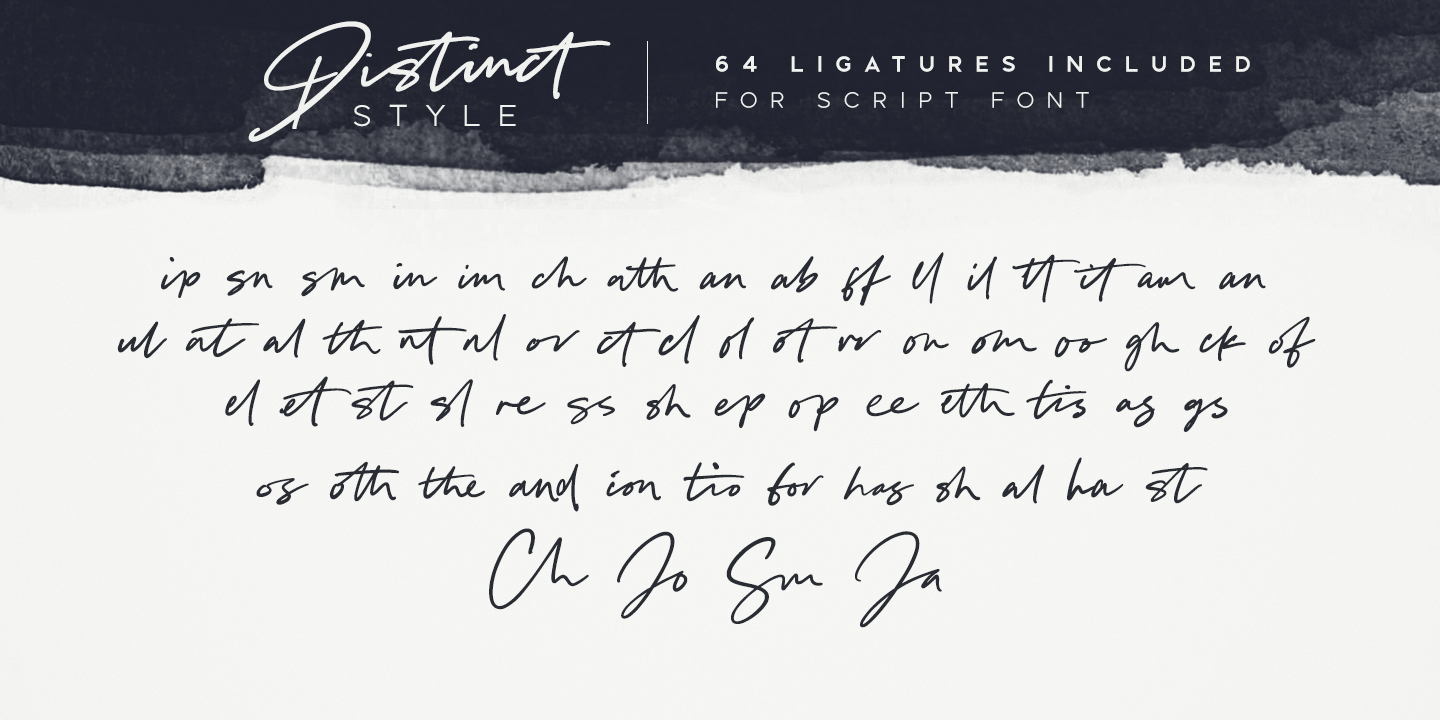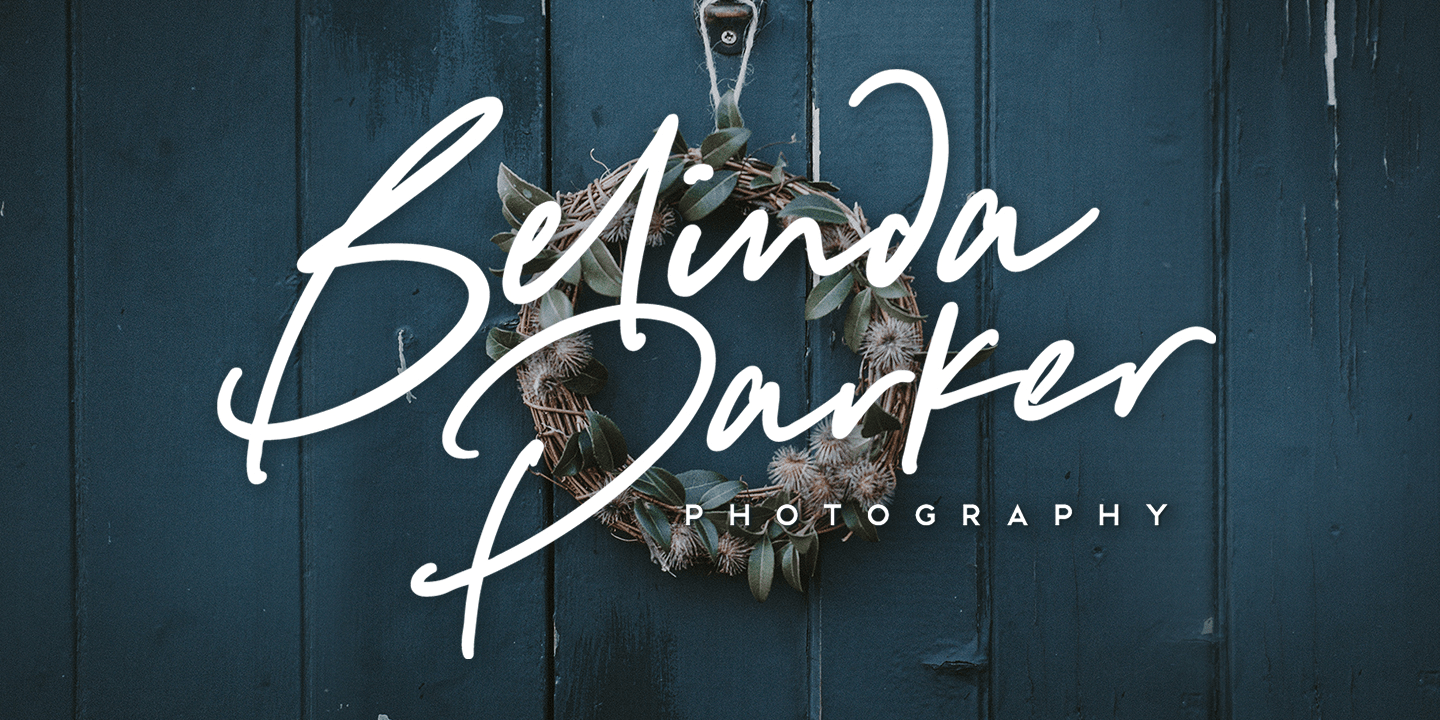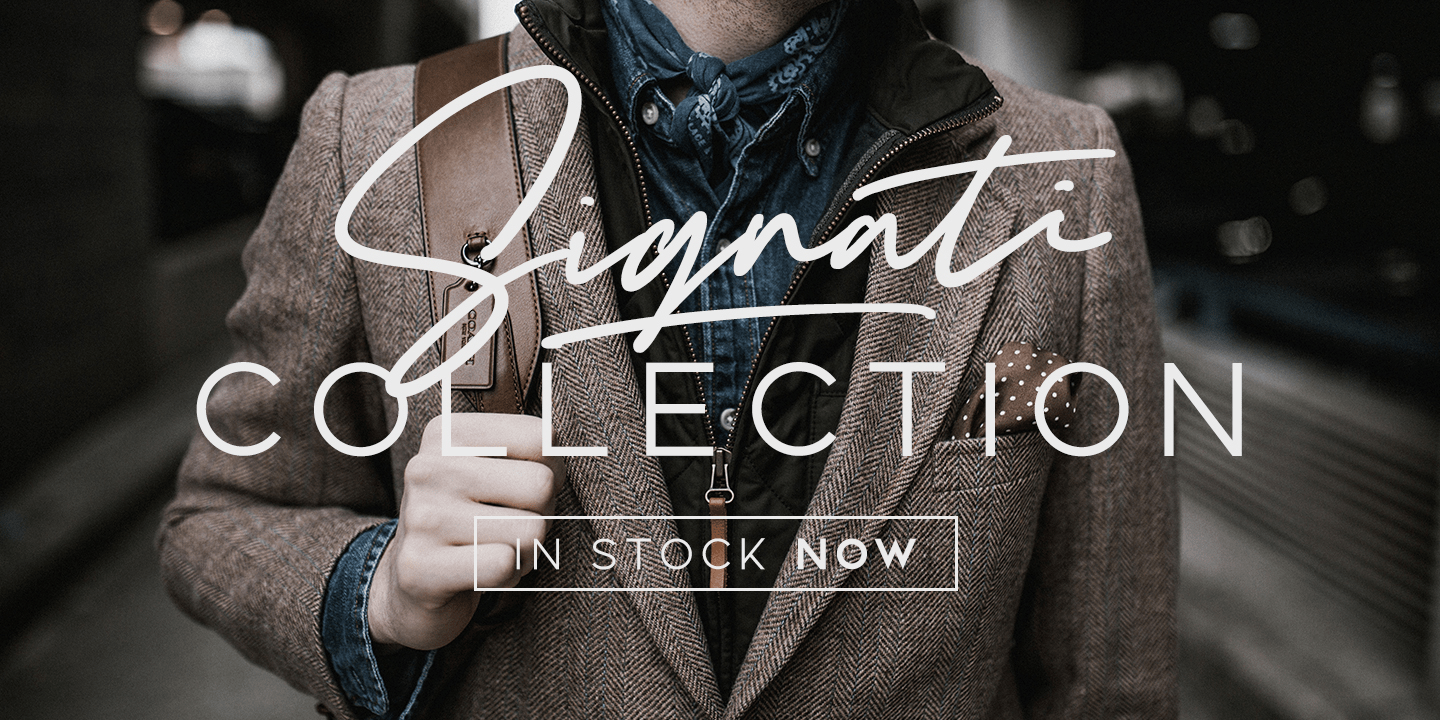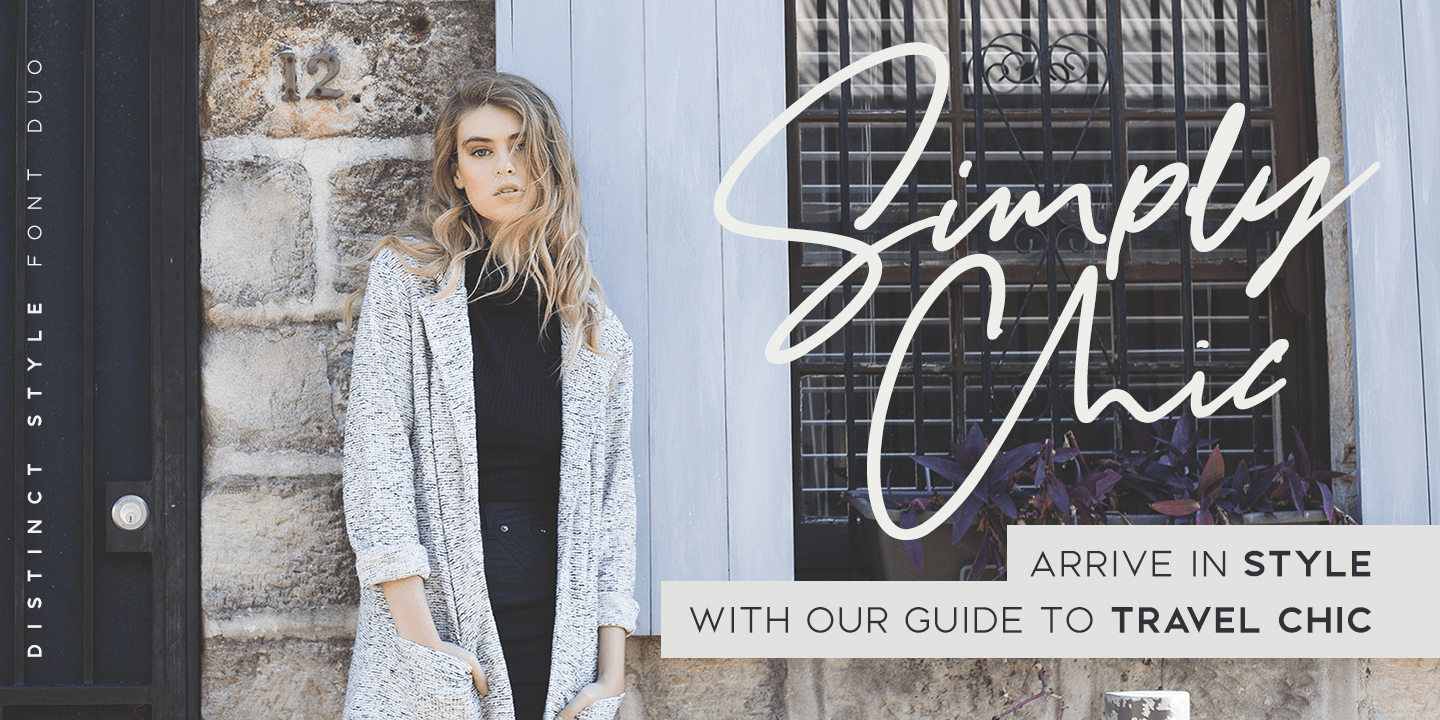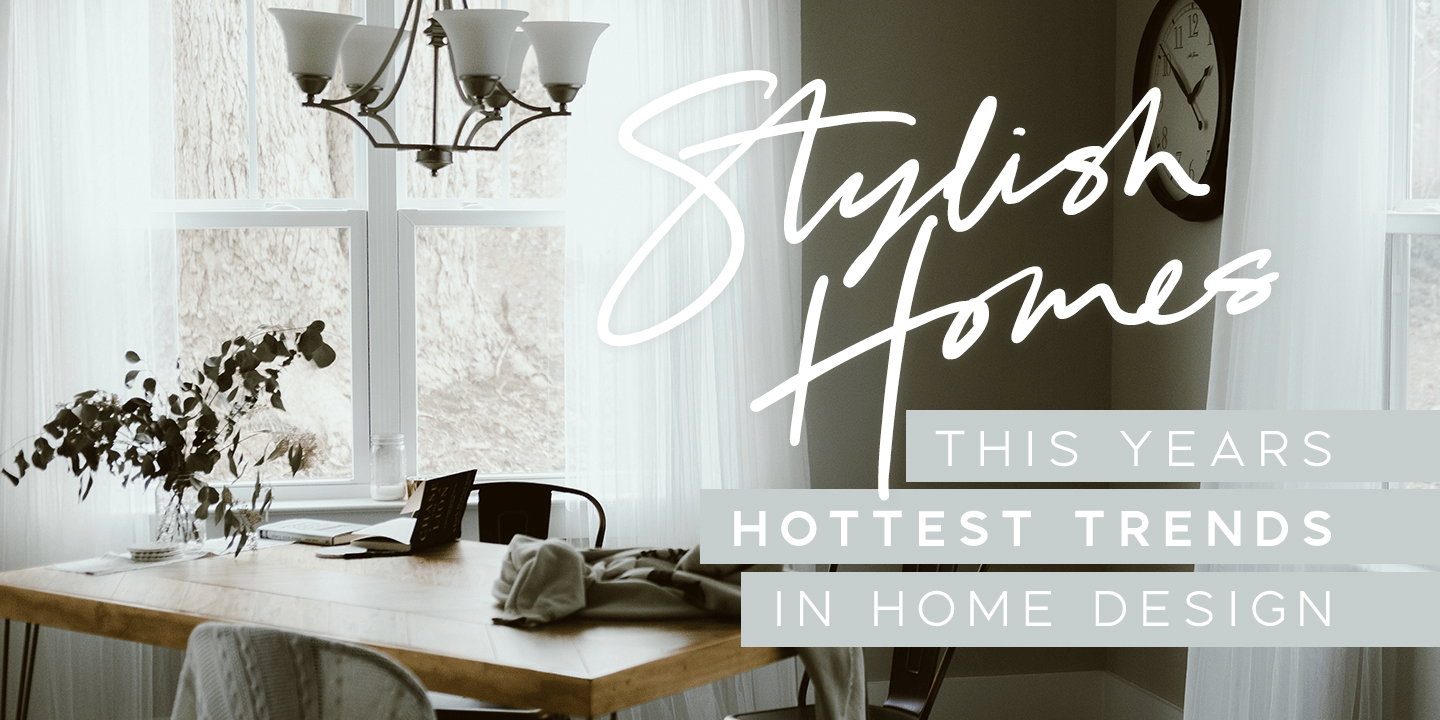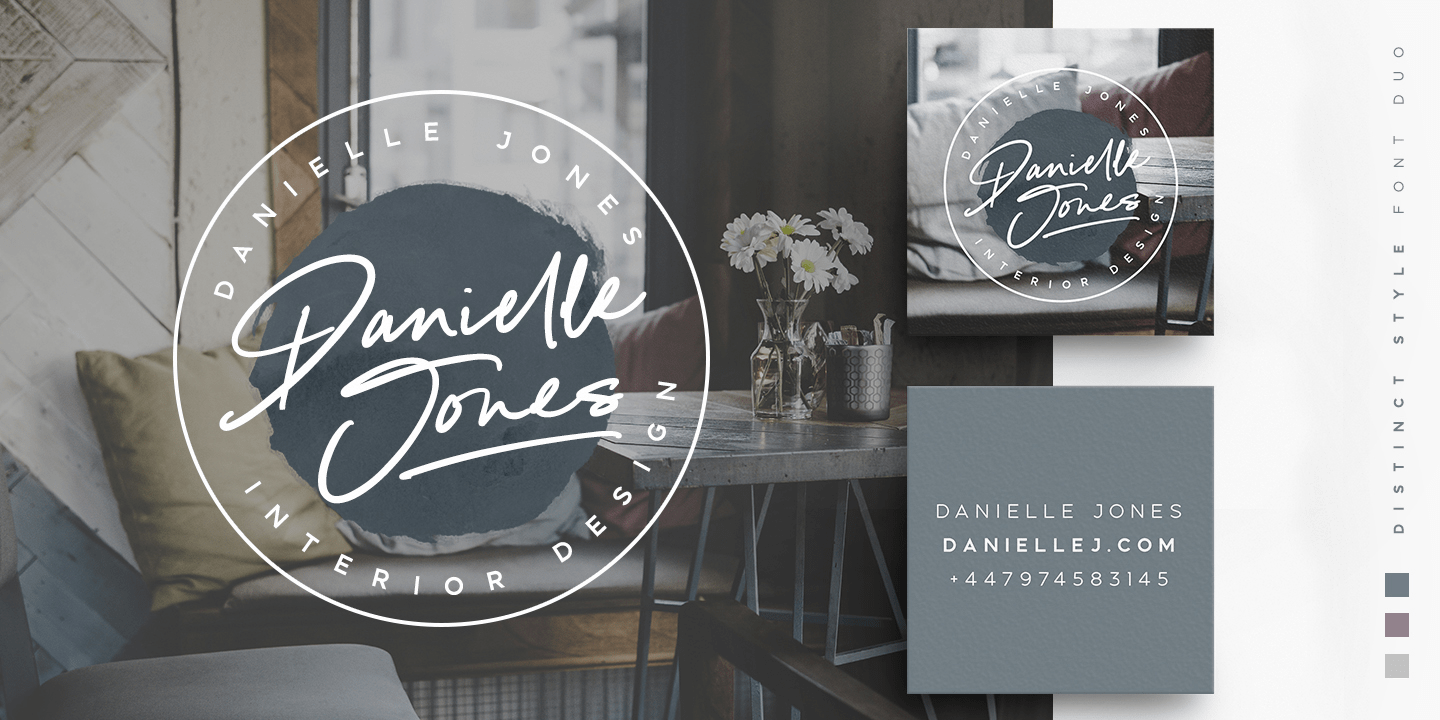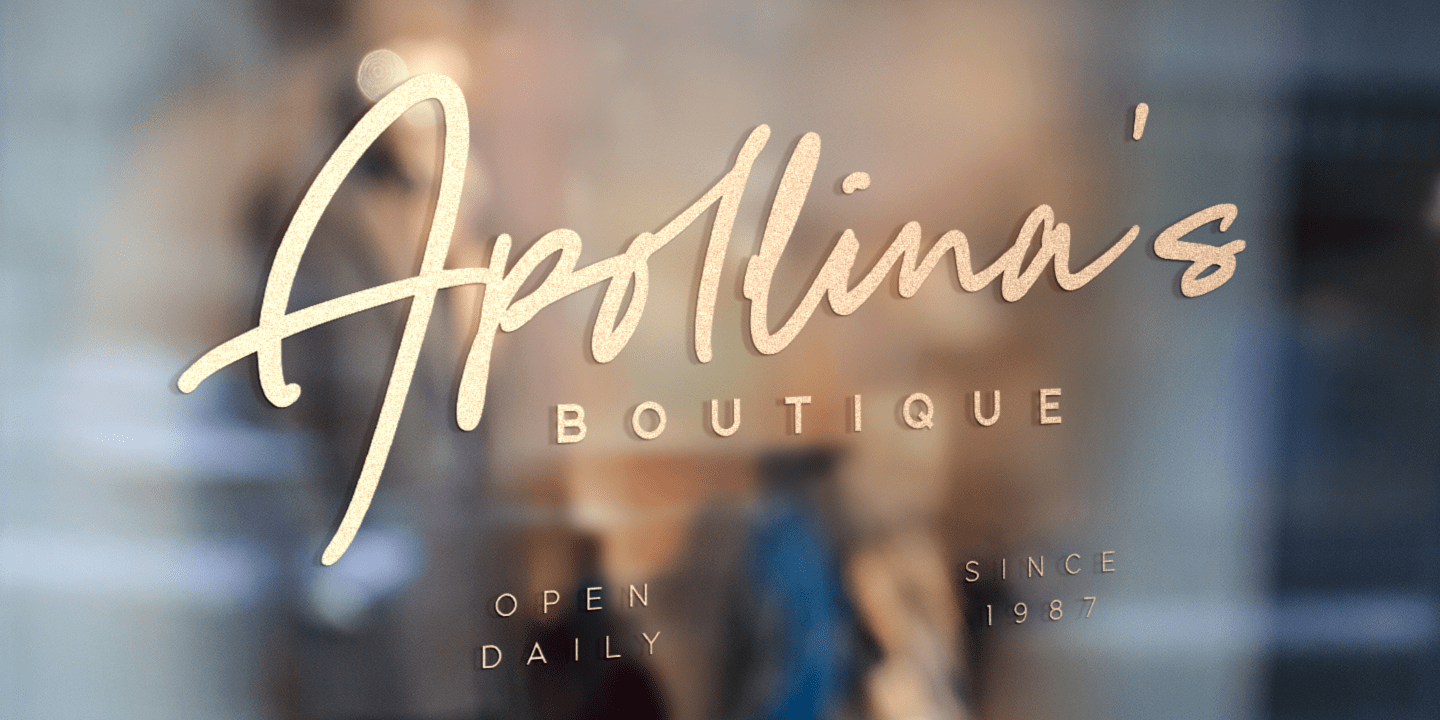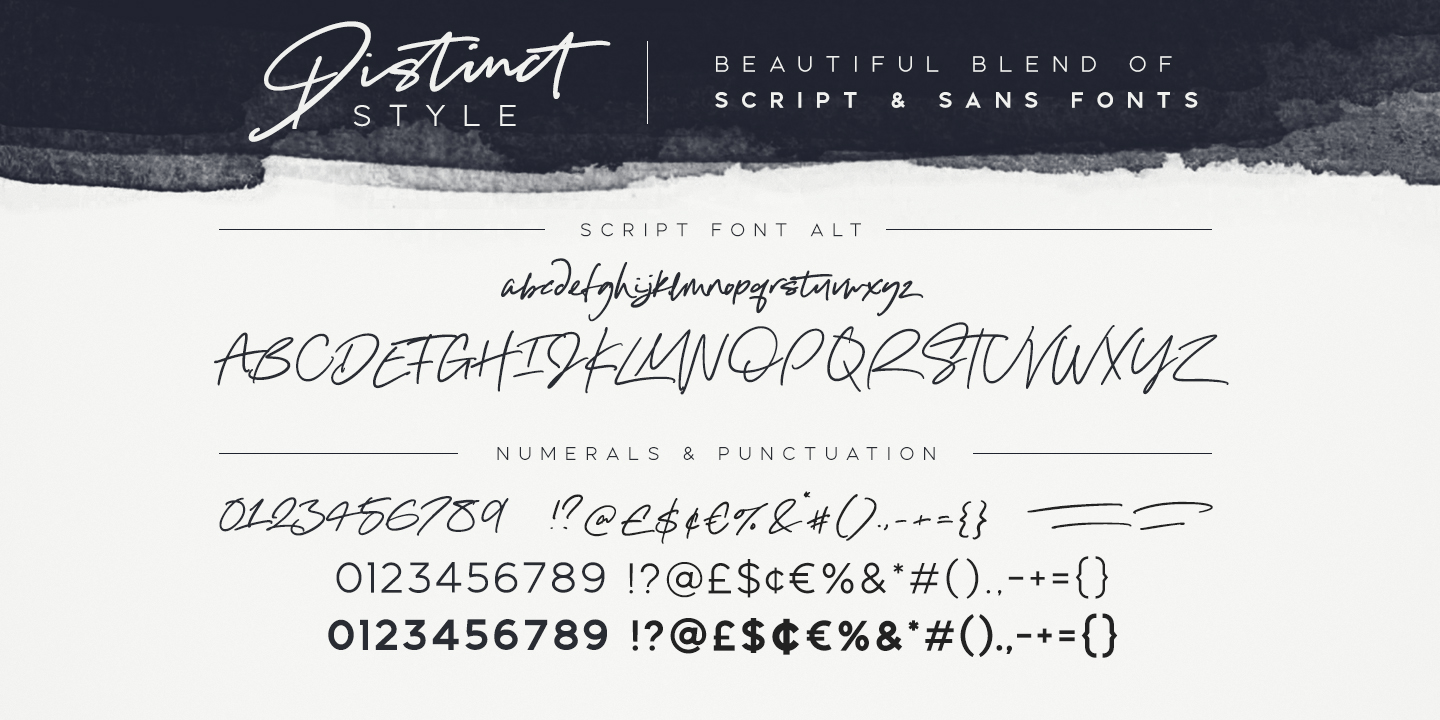
Distinct Style
Font Family by Set Sail Studios
Get stylish with Distinct Style, a fashionable and contemporary pair of signature & sans fonts designed to perfectly compliment one another. With a fast-flowing script font and a two-weight modern sans serif, the Distinct Style duo offers typographic harmony for your professional design projects, including; logos, branding, magazines, blog posts, social media, advertisements & product designs. Distinct Style includes 4 font files, designed to work as perfect companions or simply as strong standalone typefaces; 1. Distinct Style Script • A classy fast-flowing signature font containing upper & lowercase characters, numerals and a large range of punctuation. 2. Distinct Style Script Alt • This is a second version of Distinct Style Script, with a completely new set of upper & lowercase characters. If you wanted to avoid letters looking the same each time to recreate a custom-made style, or try a different word shape, simply switch to this font for an additional layout option. 3. Distinct Style Sans Light • A stylish, modern sans-serif font containing uppercase only characters, numerals and a large range of punctuation. Creates a perfect pairing contrast with the Disticnt Style Script fonts. 3. Distinct Style Sans Bold • A bolder version of the Distinct Style Sans font. Add some contrast to your text by pairing this with the Sans Light version, or use at smaller sizes. Distinct Style Script contains 64 Ligatures, accessible by turning on 'Discretionary Ligatures' with any software supporting OpenType features. Fonts include multilingual support for; English, French, Italian, Spanish, Portuguese, German, Swedish, Norweigen, Danish, Dutch, Finnish, Indonesian, Filipino, Malay.
Distinct Style Script
Distinct Style Script Alt
Disctinct Style Ligatures
Distinct Style Sans Light
Distinct Style Sans Bold